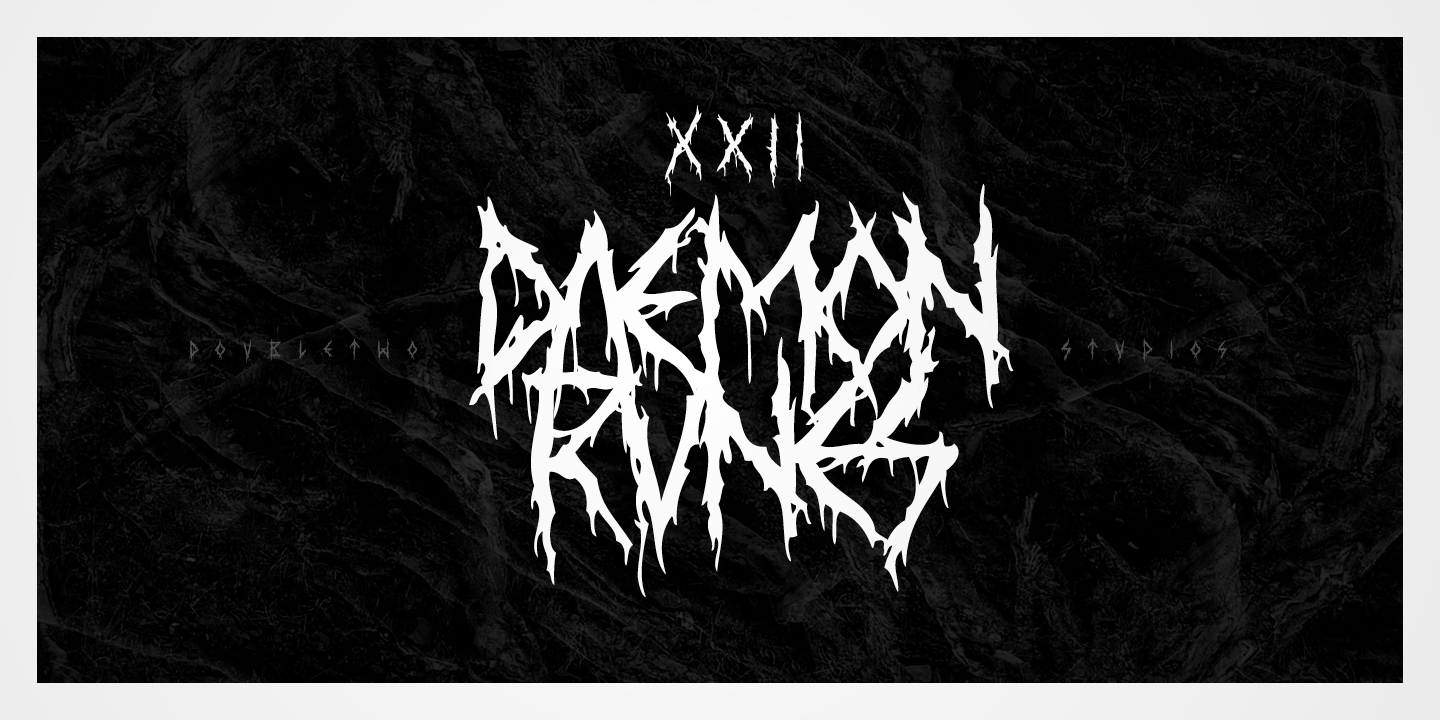
XXII DaemonRunes Font is perfect for fantasy game design, book covers, occult and mystical projects, role-playing materials, tattoos, and alternative branding. Its runic and ancient style transports your audience to a magical realm.
What makes XXII DaemonRunes Font so exciting is its authentic and mysterious character. Each symbol is crafted with intricate detail, evoking ancient scripts and secret knowledge, making your design stand out with a powerful narrative.
The font family usually includes one main style, sometimes with alternate glyphs or decorative elements to enhance the mystical atmosphere.
If you want to infuse your projects with an enigmatic and legendary vibe, XXII DaemonRunes Font Free Download is a perfect choice. Let this font be the gateway to your creative magic.